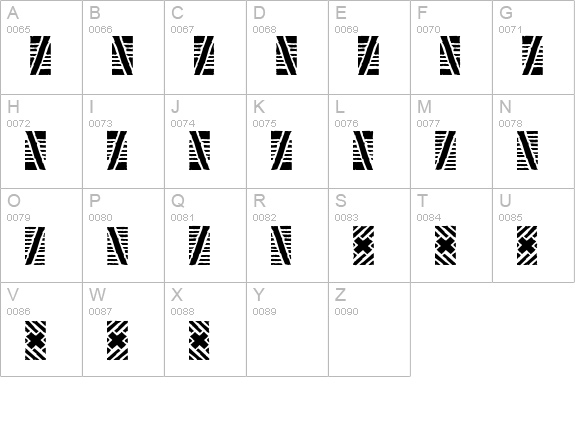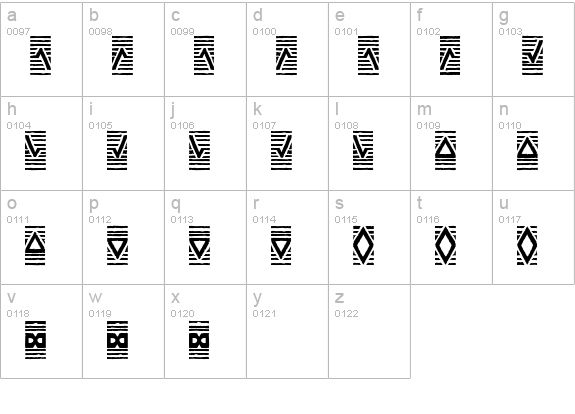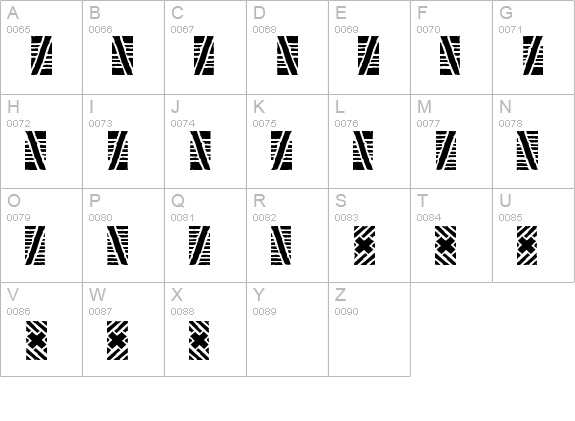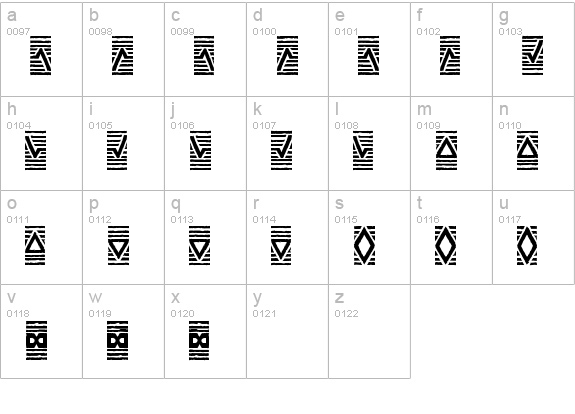
Stoned-RuleThree font is a unique and eye-catching typeface that is sure to make a statement in any design project. With its bold and edgy appearance, this font is perfect for adding a touch of creativity and personality to your work. The distinctive characters and geometric shapes of Stoned-RuleThree font make it stand out from the crowd and give your text a modern and stylish look. What's even better is that Stoned-RuleThree font is completely free to download at FontsMarket.com. You can easily add this striking font to your collection without any cost, making it a fantastic choice for designers on a budget or anyone looking to enhance their projects with a fresh and contemporary typeface. Don't miss out on the opportunity to use this impressive font in your designs – download Stoned-RuleThree today and take your typography to the next level!